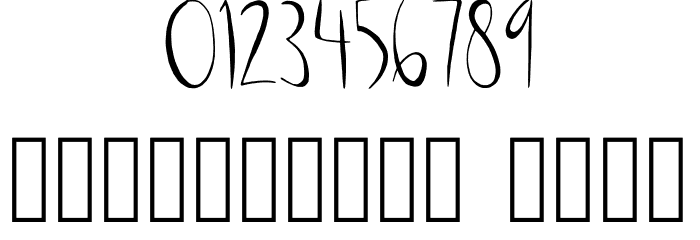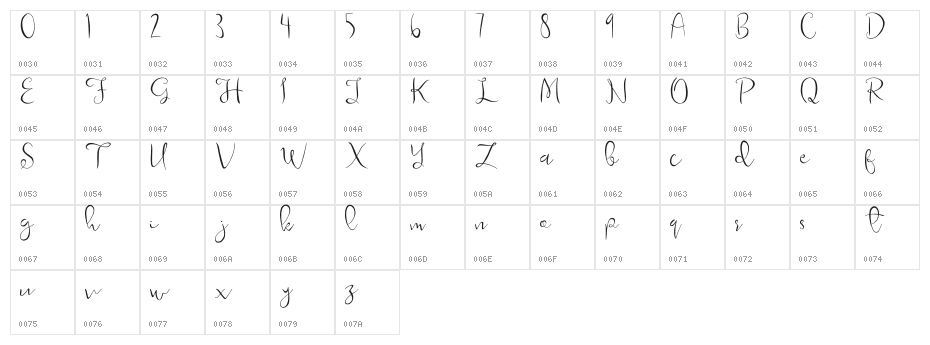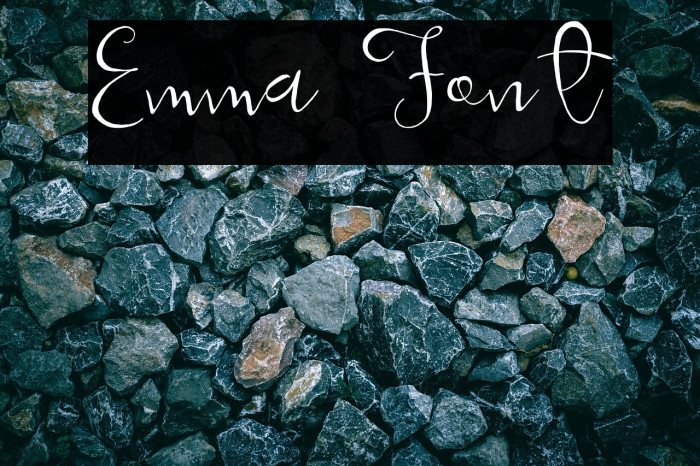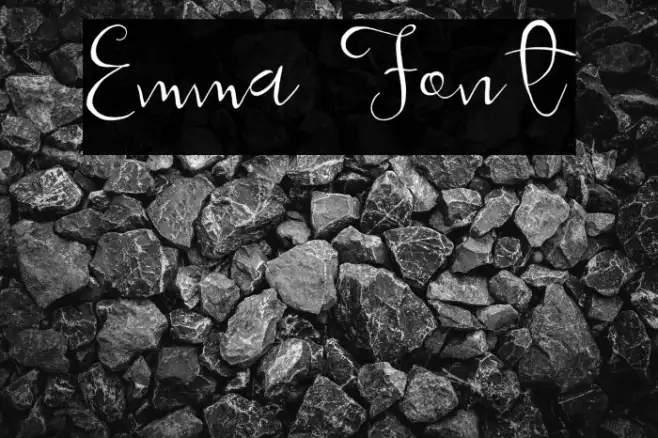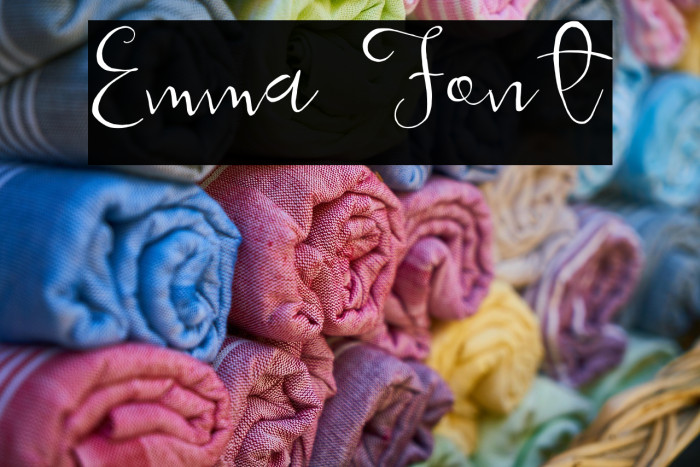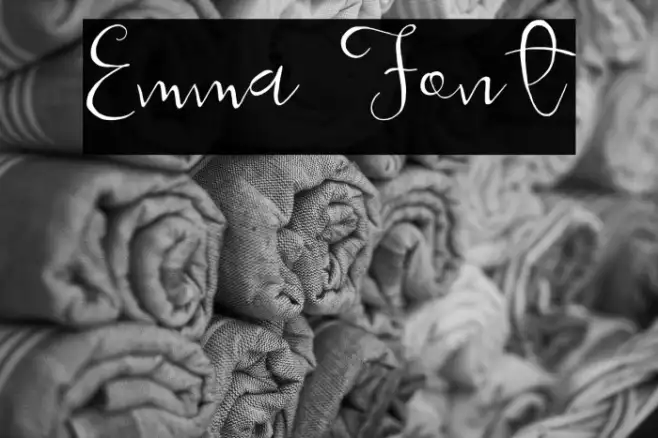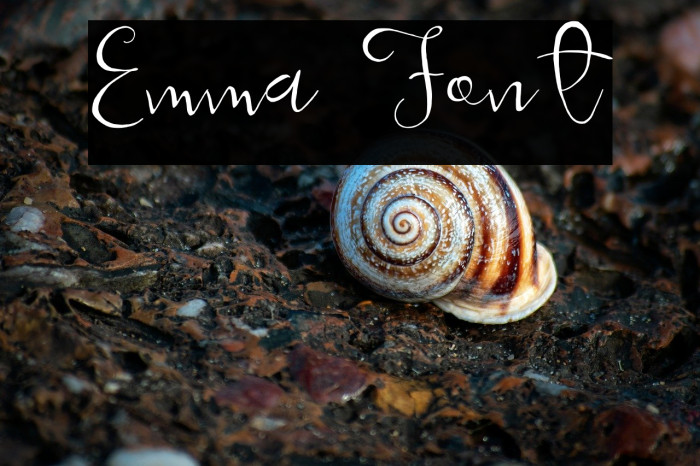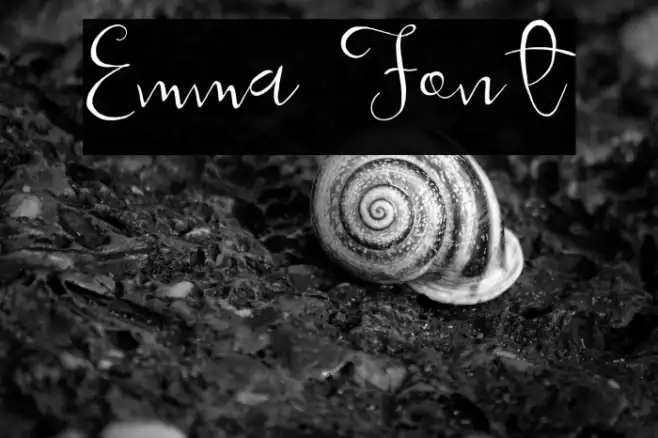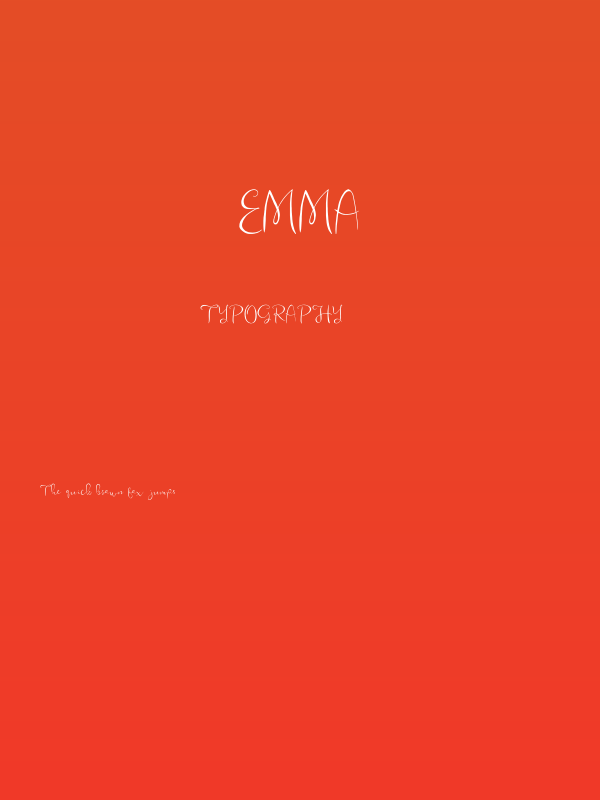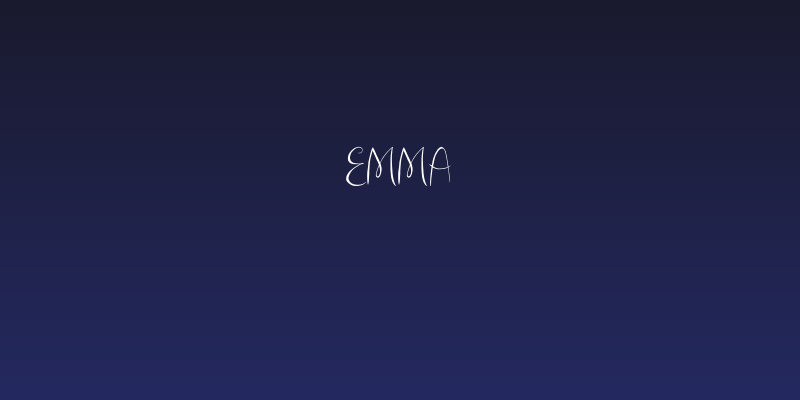
Emma Font
Emma Description
This font features a flowing, elegant script style with a modern twist. The uppercase letters are tall and slender, with graceful curves and loops that give them a sophisticated appearance. The lowercase letters maintain a consistent style, with smooth, connected strokes that enhance readability while retaining an artistic flair. The numerals are distinct and stylish, complementing the overall aesthetic. This font is perfect for projects that require a touch of elegance and creativity, such as wedding invitations, branding, or high-end product packaging.
| Proposed Projects | Ideal for wedding invitations, branding, high-end product packaging, and creative projects. |